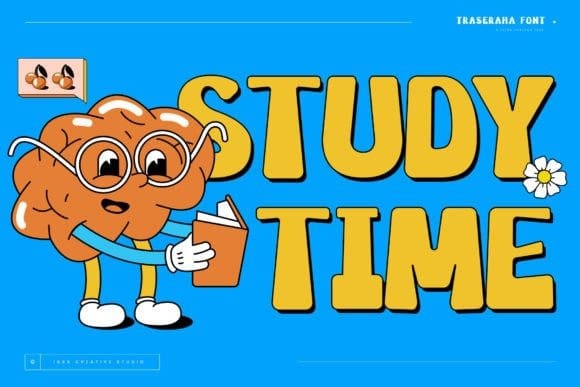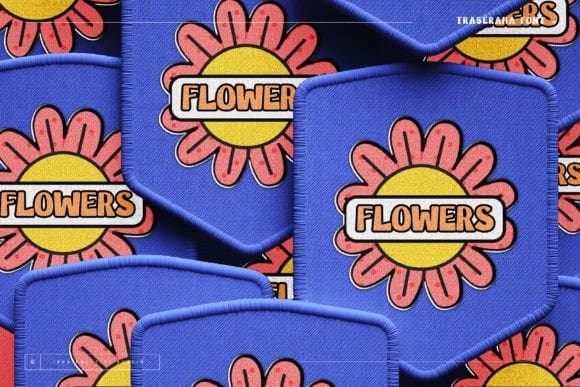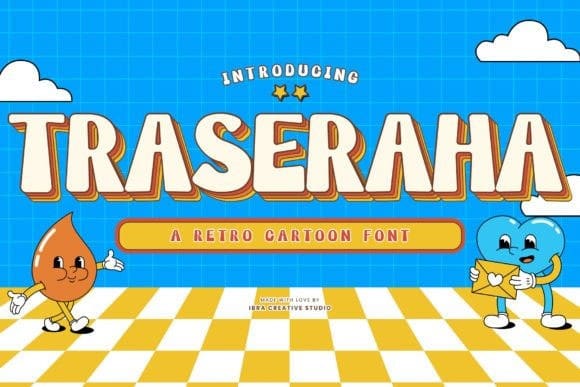
Traseraha Display Font
Traseraha Display Font, a captivating retro cartoon font, effortlessly channels the whimsical charm of classic animated aesthetics. Designed by the creative minds at Traseraha Studios, this font pays homage to the golden era of cartoons with its playful curves and vibrant personality. Each letter exudes a nostalgic vibe, reminiscent of vintage comic strips and animated shows, making it an ideal choice for projects seeking a touch of retro flair.